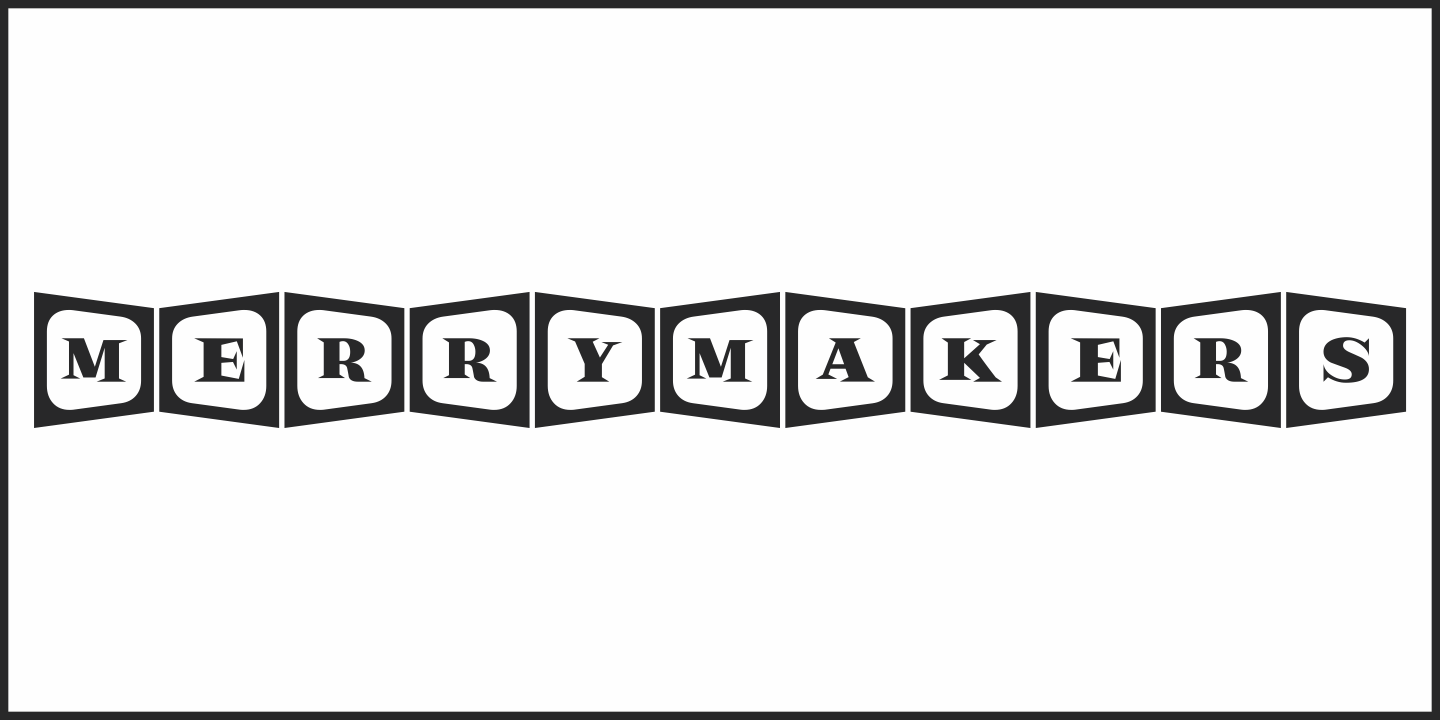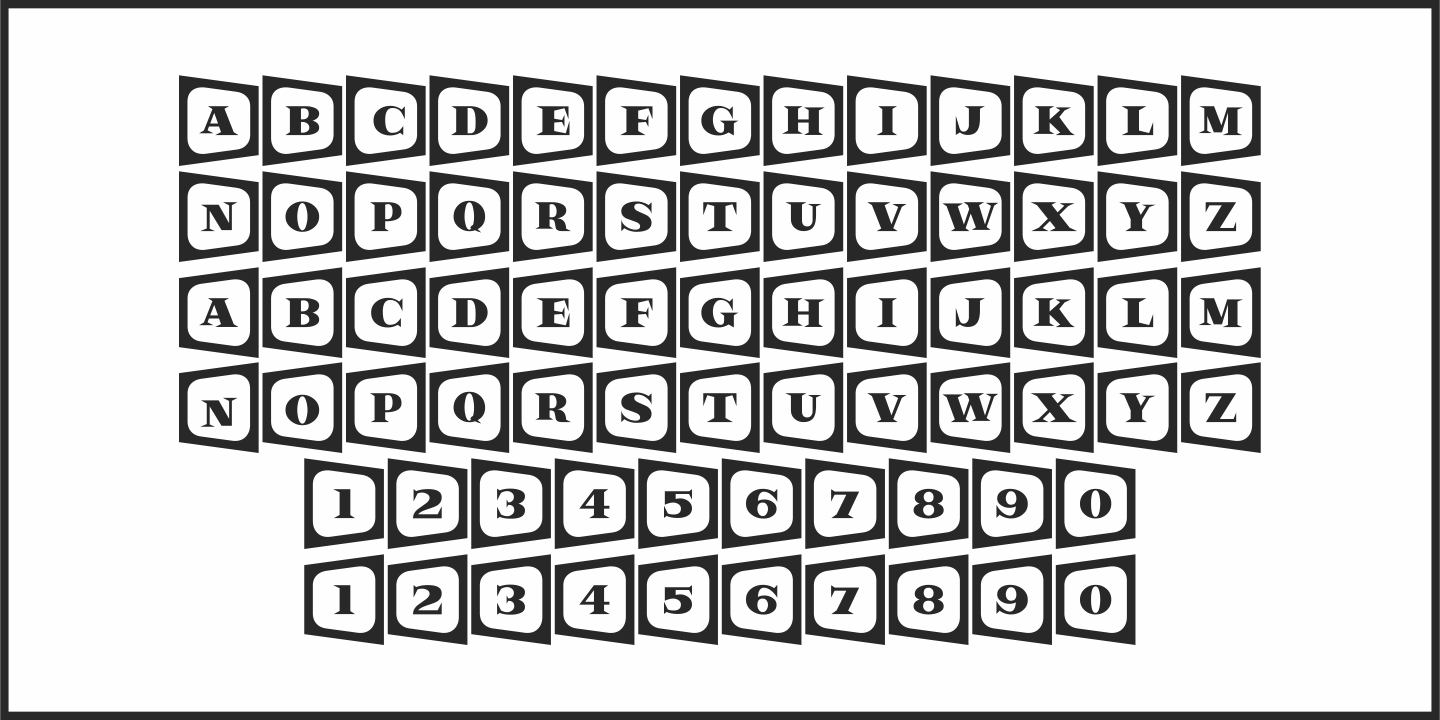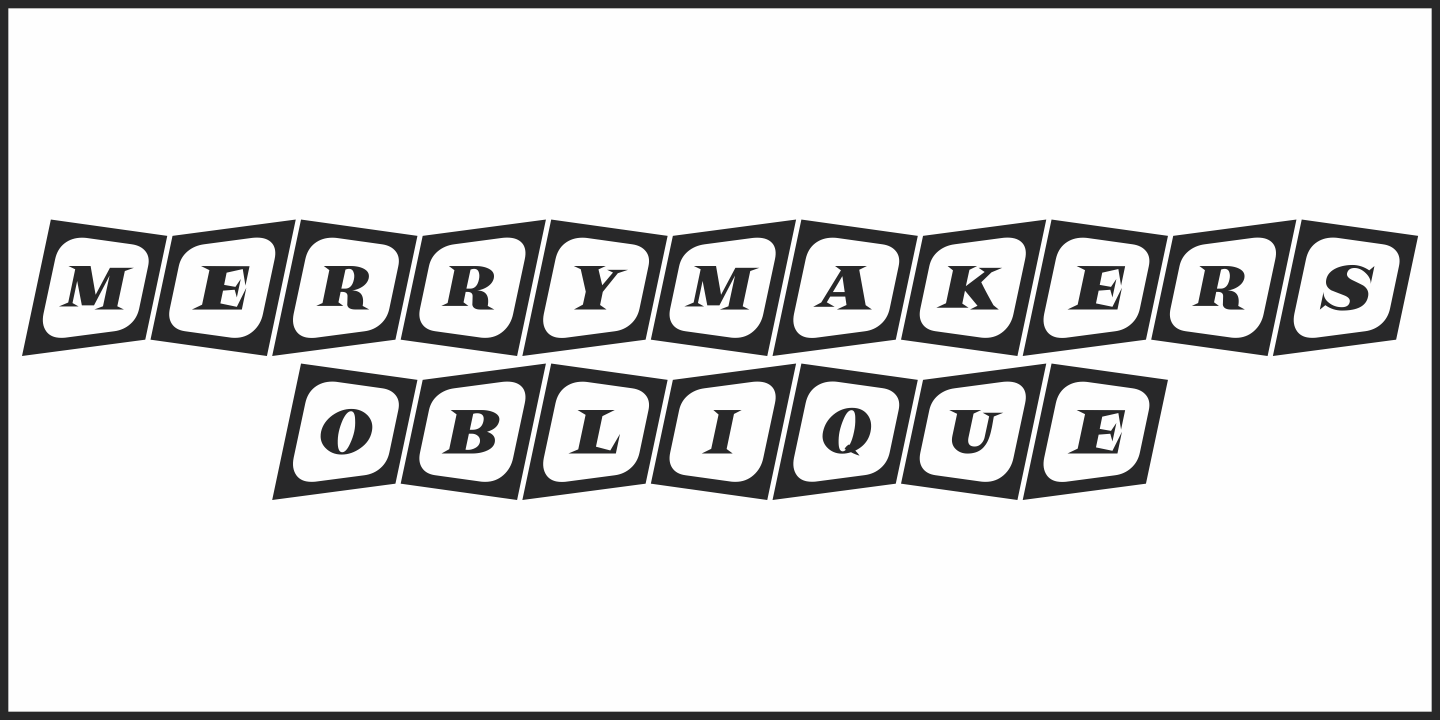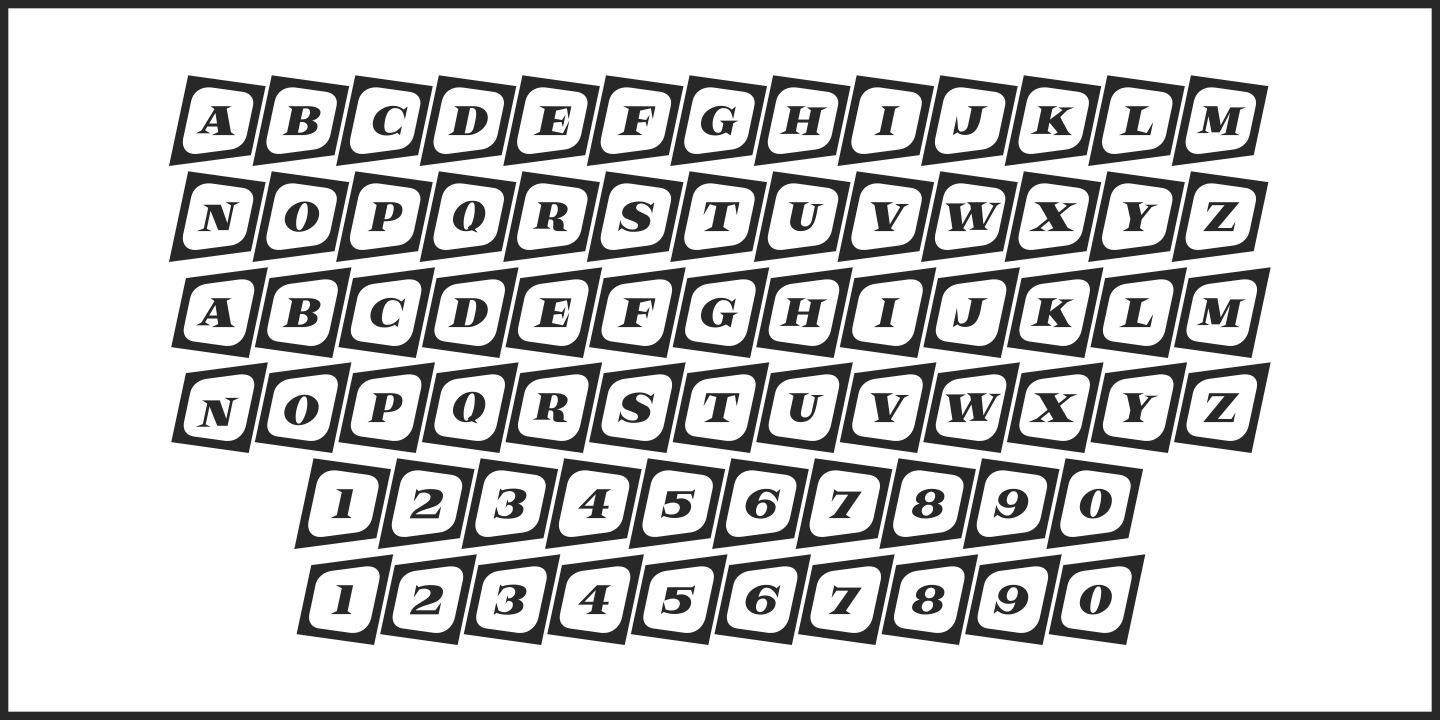
Merrymakers
A throwback design reminiscent of 1950s signage and print ads, Merrymakers JNL takes a previous release (Bluesman JNL) and places the letters and numbers inside parallelograms with 'TV screen' openings.
Merrymakers JNL is available in both regular and oblique versions.
The upper case A-Z characters have the taller side of the shape to the left, while the lower case a-z has the taller side to the right.
To make a 'fan fold' or zig-zag message, simply alternate upper and lower cases as in this example:
C-a-R
You can type spaces between words, but if you prefer blank connectors, use the following:
Upper case solid black connector – left bracket key Lower case solid black connector – right bracket key Upper case 'TV screen' connector – left brace key Lower case 'TV screen' connector – right brace key
There is a very limited set of punctuation available. The upper case ampersand, question mark, exclamation point, period, comma, single quote and double quote are all on their respective key positions, but to accommodate the lower case [smaller side] versions, those glyphs have been reassigned to other standard keyboard positions:
Type @ to get & Type # to get ? Type $ to get ! Type ^ to get . Type * to get , Type - to get ' Type = to get ”
Additionally, to access the lower case [smaller side] versions of the numerals, type the following keys:
Type % to get 0 Type ( to get 1 Type ) to get 2 Type + to get 3 Type / to get 4 Type : to get 5 Type ; to get 6 Type < to get 7 Type > to get 8 Type to get 9